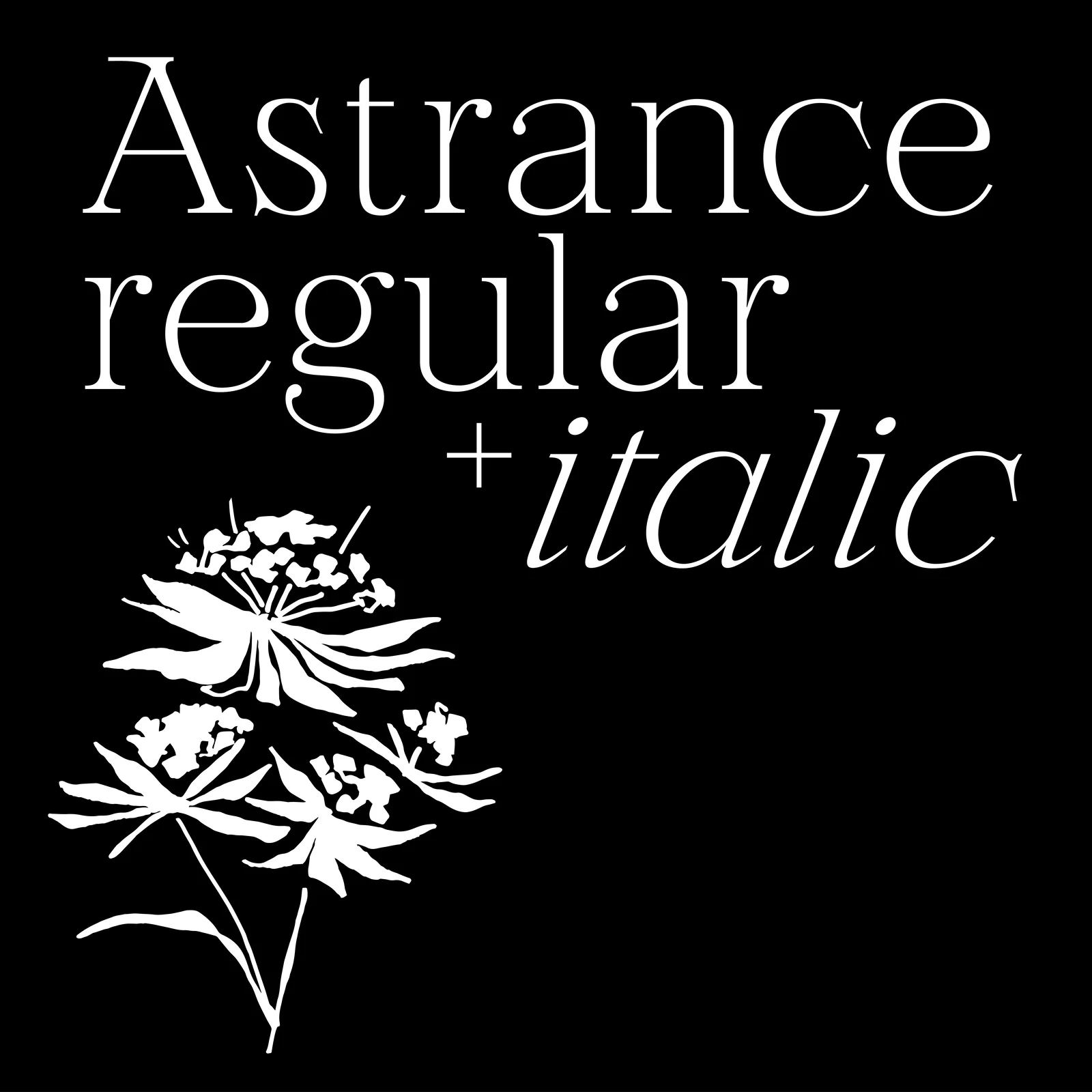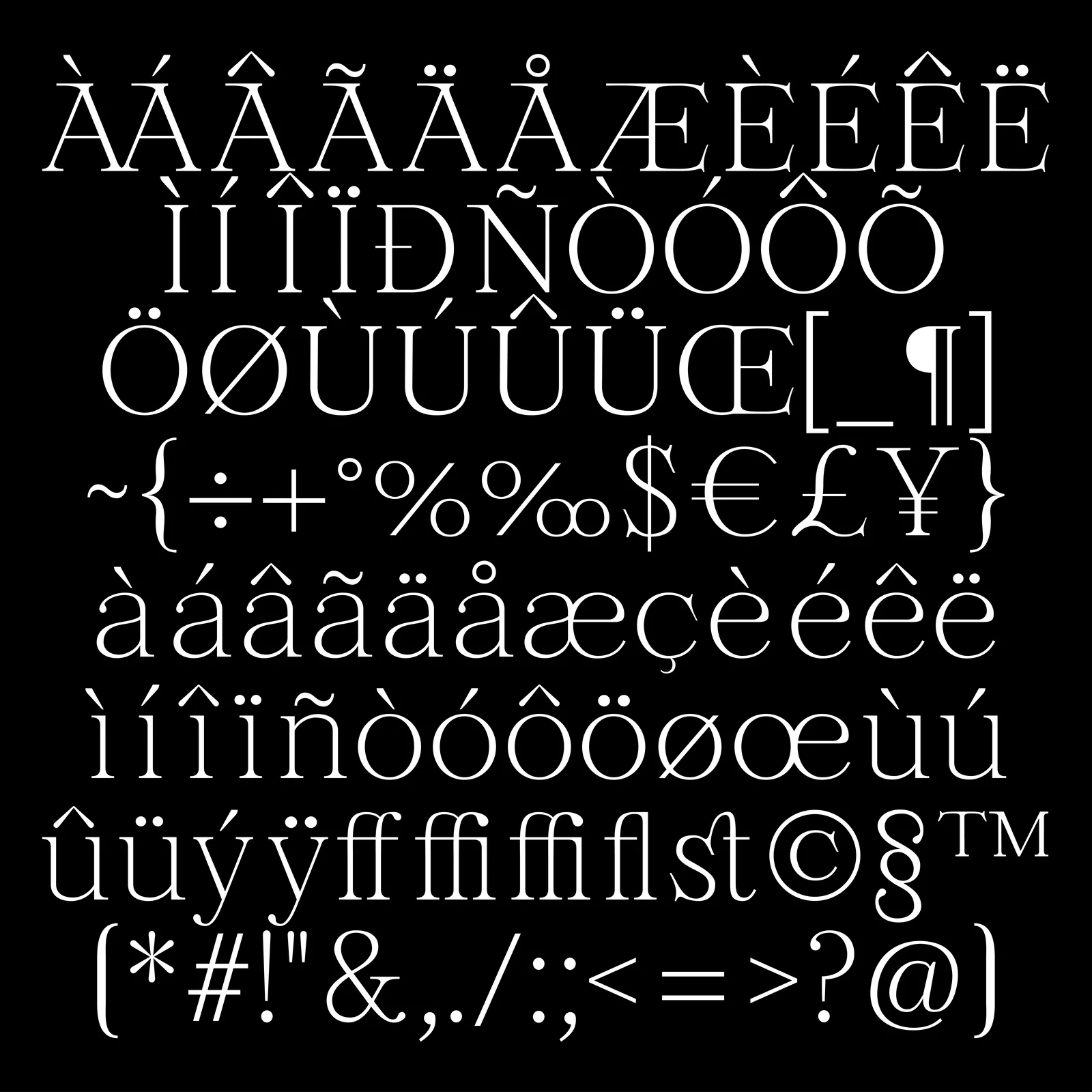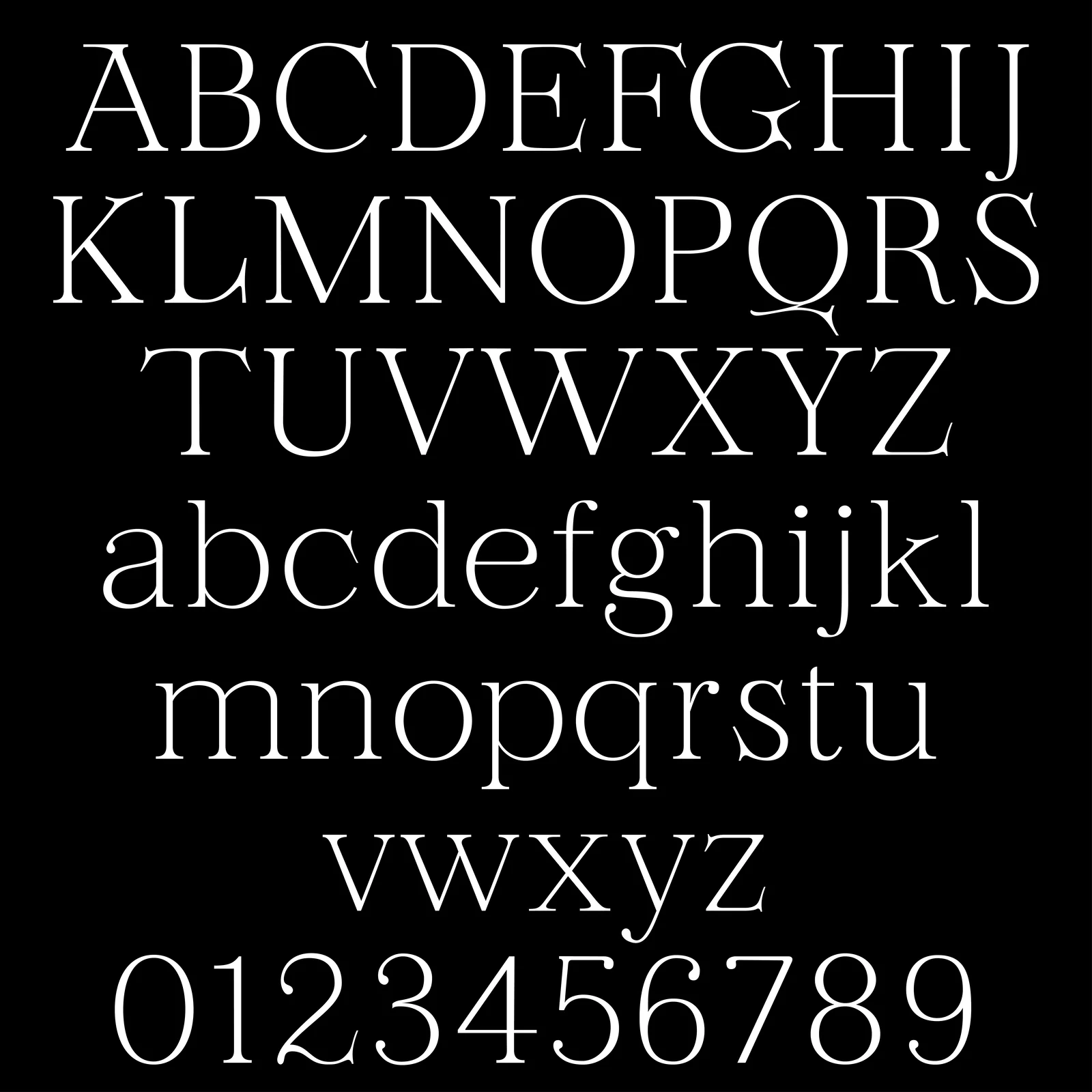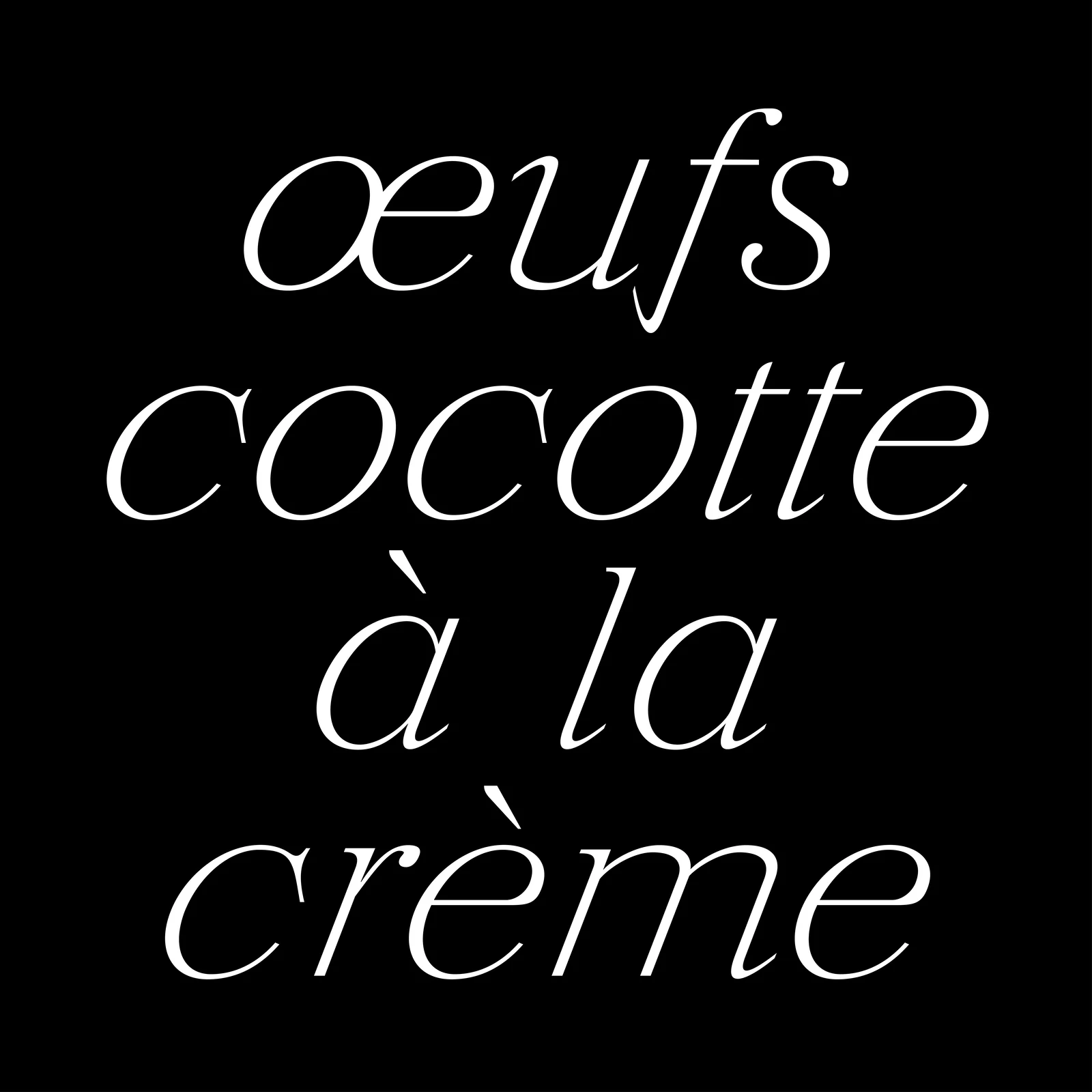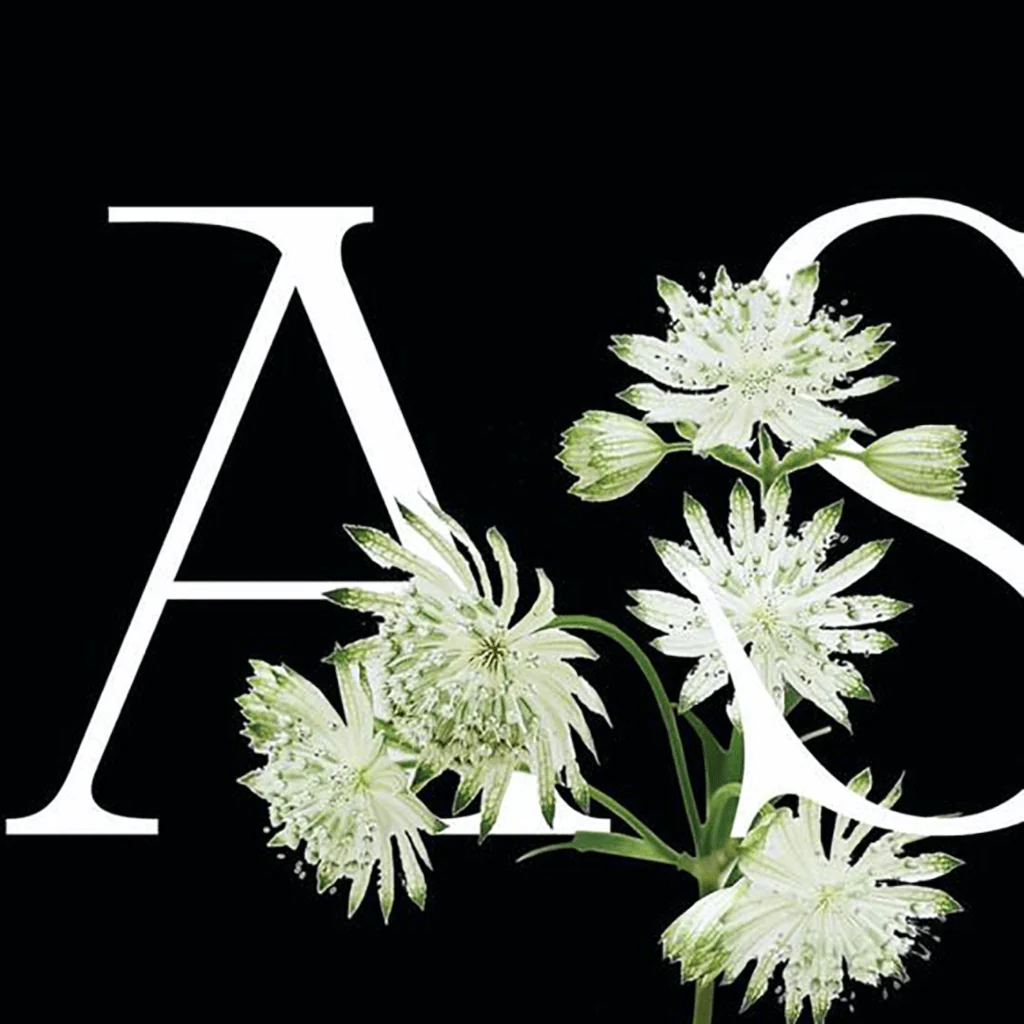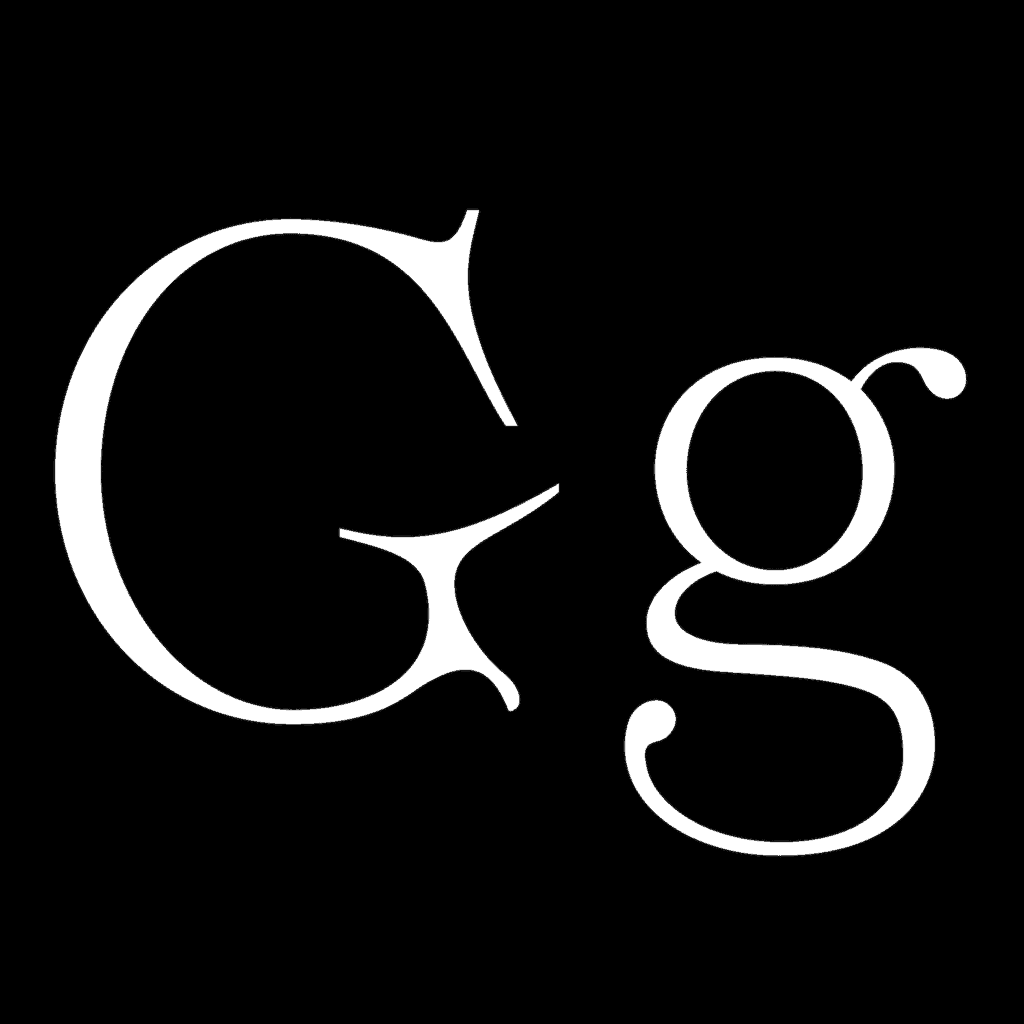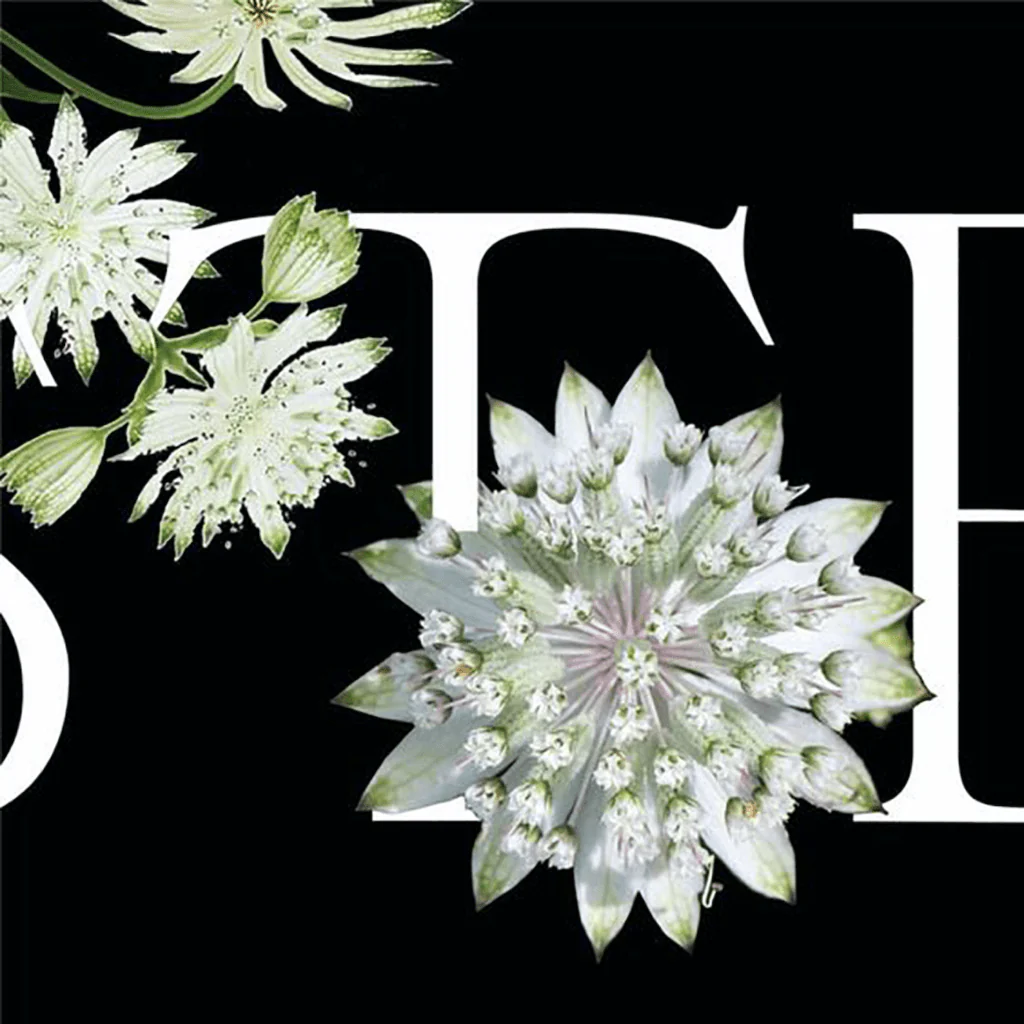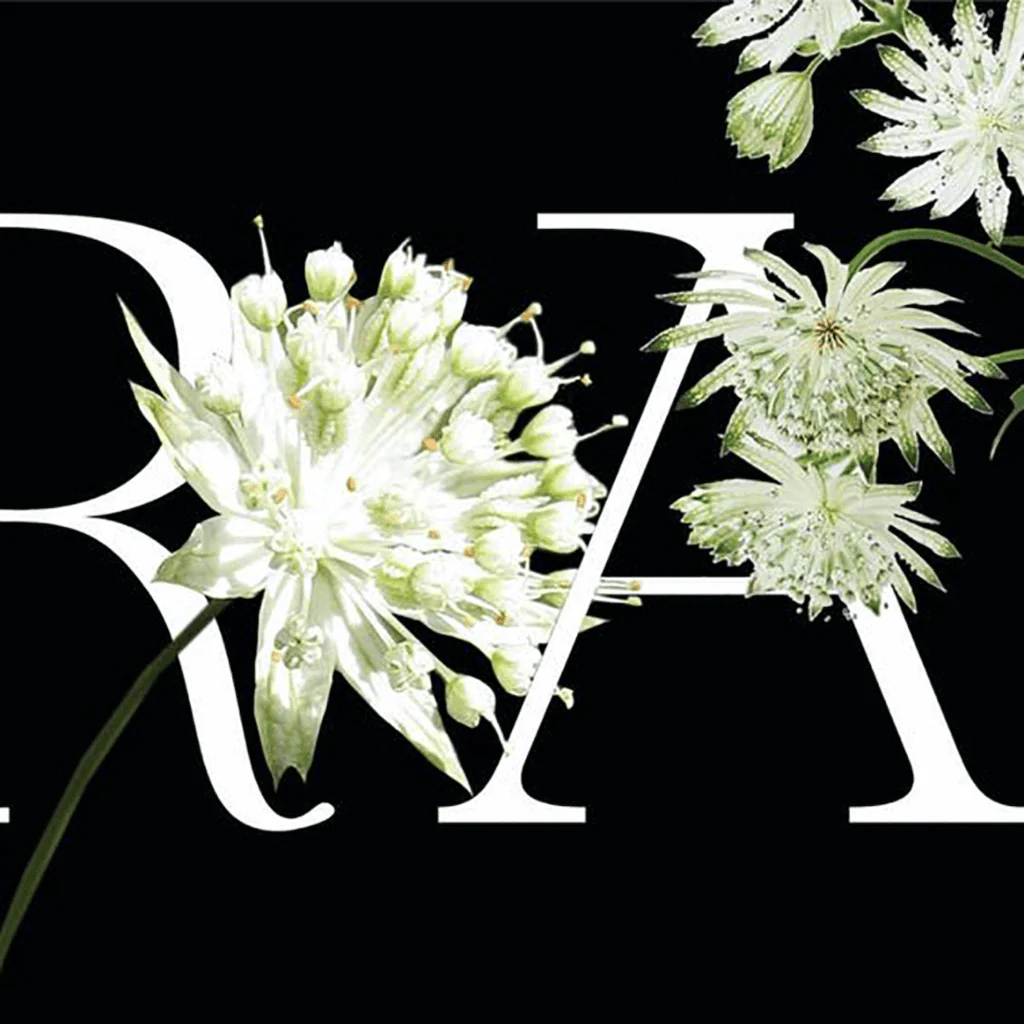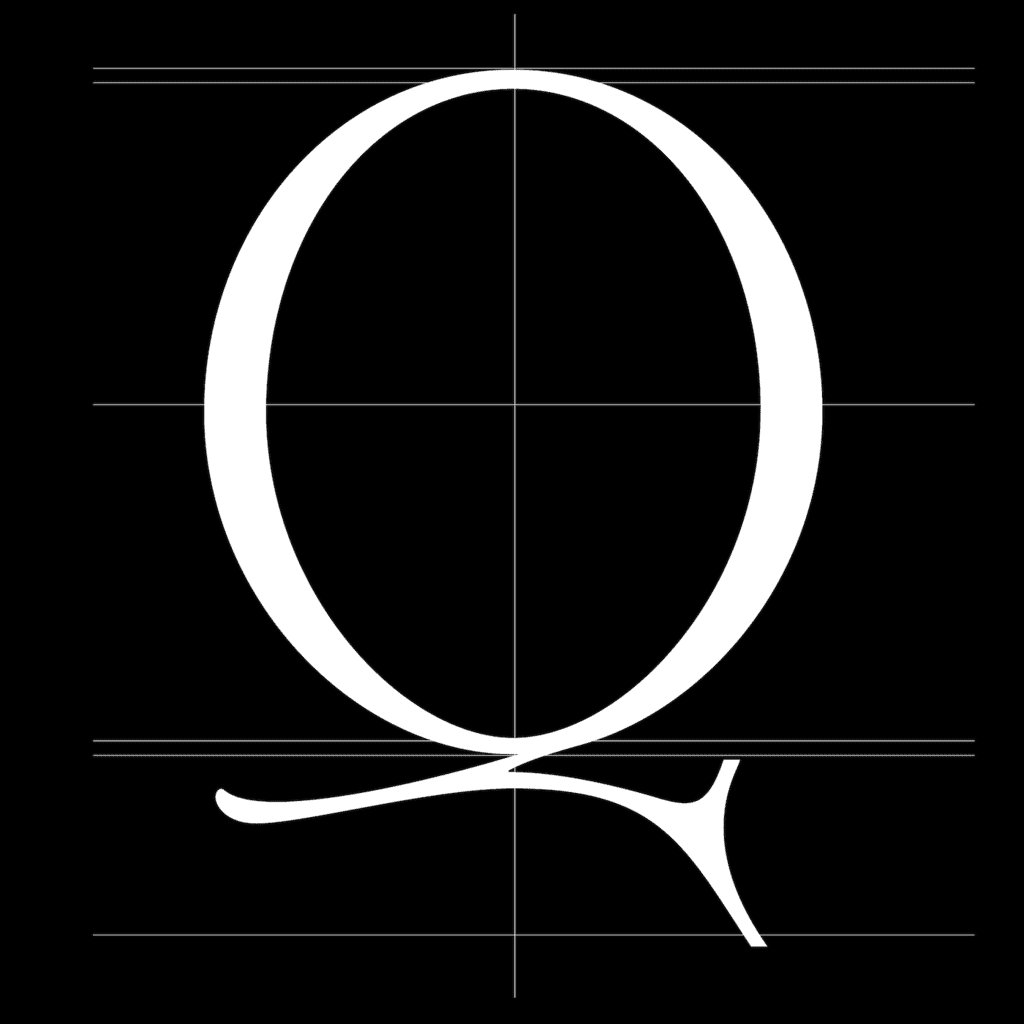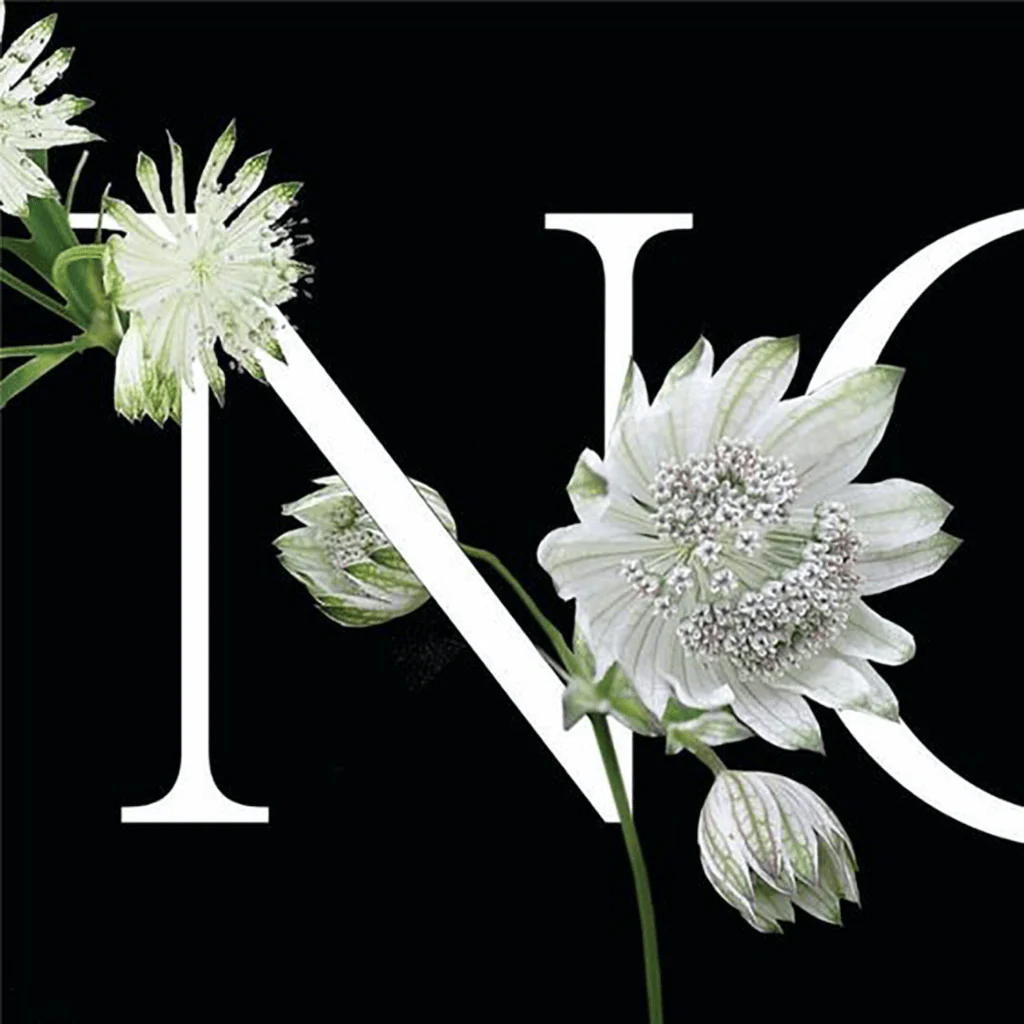
Astrance
Astrance Regular is a serif typeface inspired by the delicate yet resilient Astrantia flower. Drawing from classical design principles, Astrance features elegant serif details that echo the flower's juxtaposition of softness and strength. Its timeless structure exudes sophistication and grace, making it a versatile choice for various design applications.
The Astrantia flower's thorny exterior, which conceals gentle, elegant curves, is beautifully mirrored in the elongated serifs and smooth curves of Astrance's glyphs. This robust yet refined typeface is ideal for branding and editorial use, offering a distinctive look that commands attention without overwhelming other visual elements.
Astrance Regular is a serif typeface inspired by the delicate yet resilient Astrantia flower. Drawing from classical design principles, Astrance features elegant serif details that echo the flower's juxtaposition of softness and strength. Its timeless structure exudes sophistication and grace, making it a versatile choice for various design applications.
The Astrantia flower's thorny exterior, which conceals gentle, elegant curves, is beautifully mirrored in the elongated serifs and smooth curves of Astrance's glyphs. This robust yet refined typeface is ideal for branding and editorial use, offering a distinctive look that commands attention without overwhelming other visual elements.